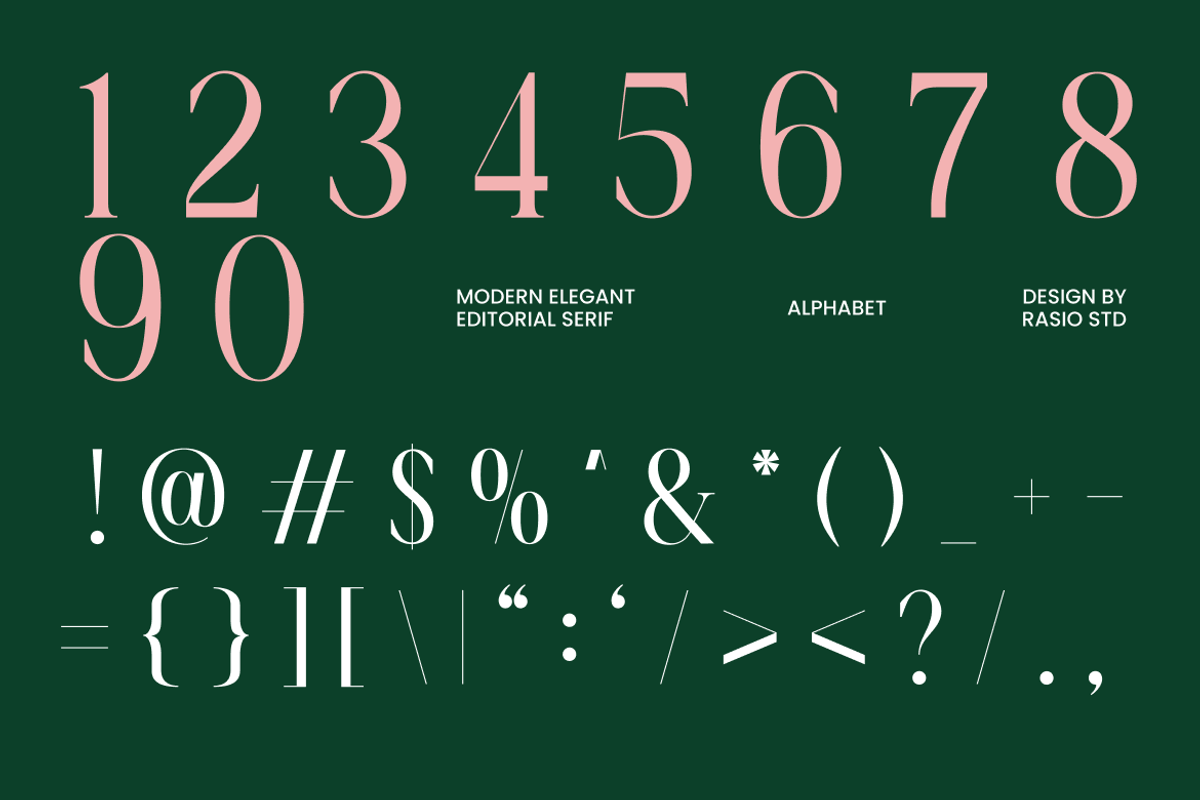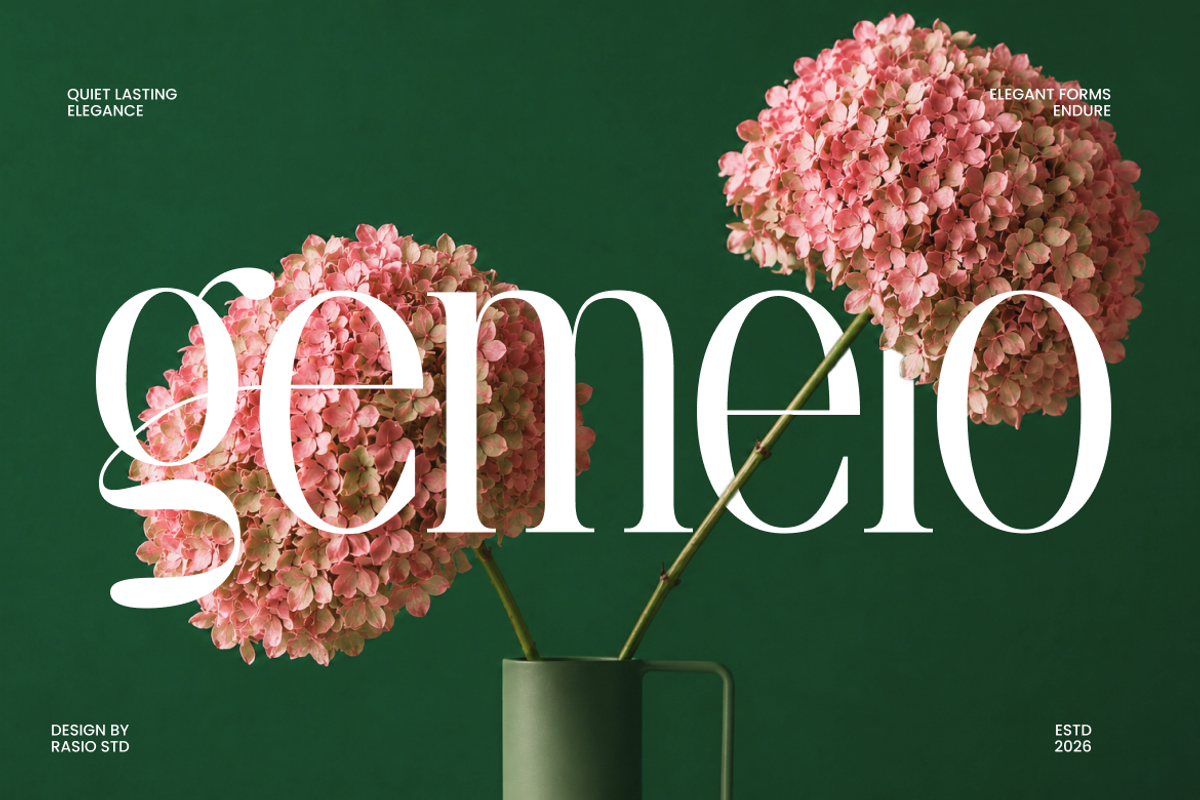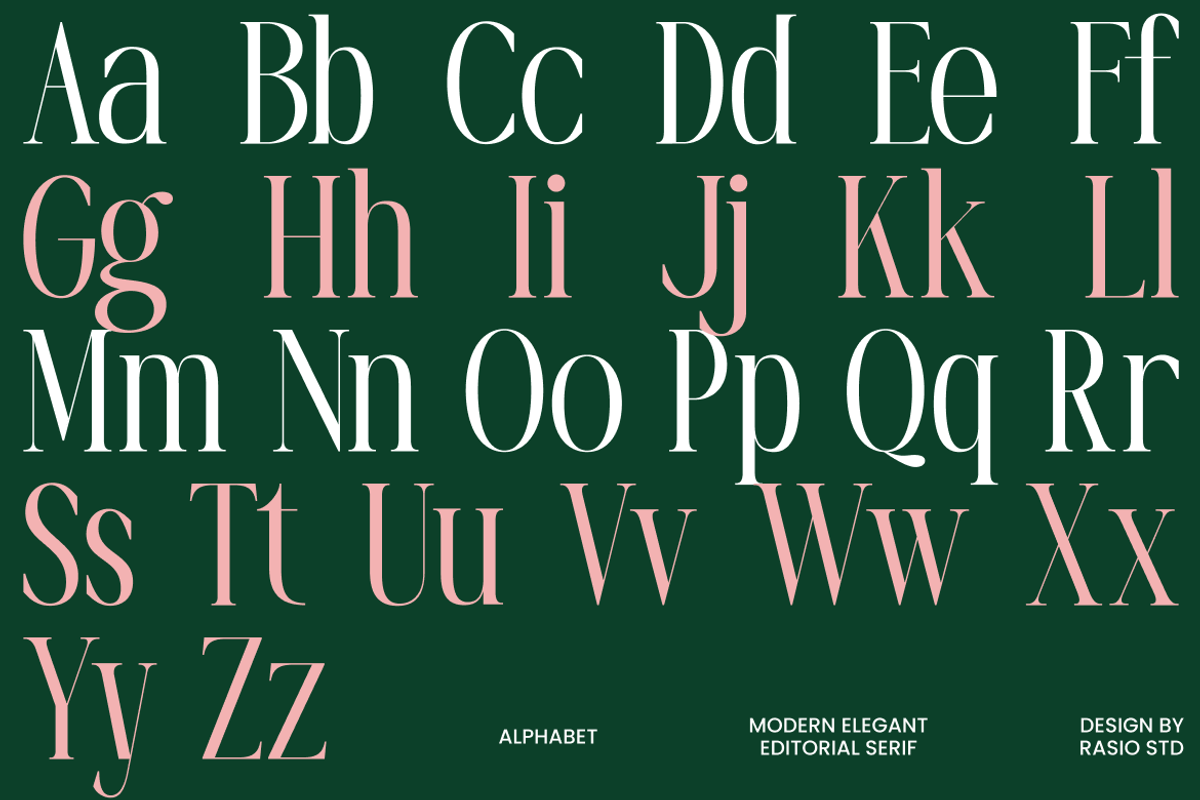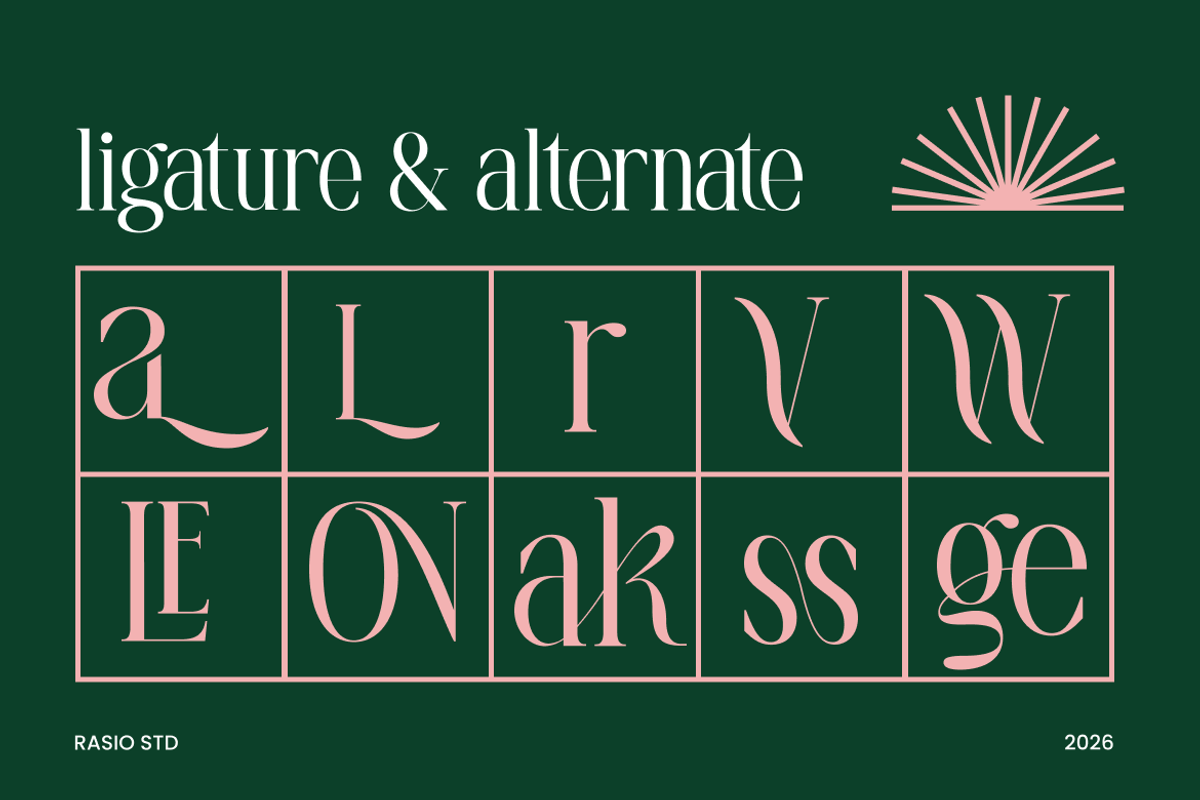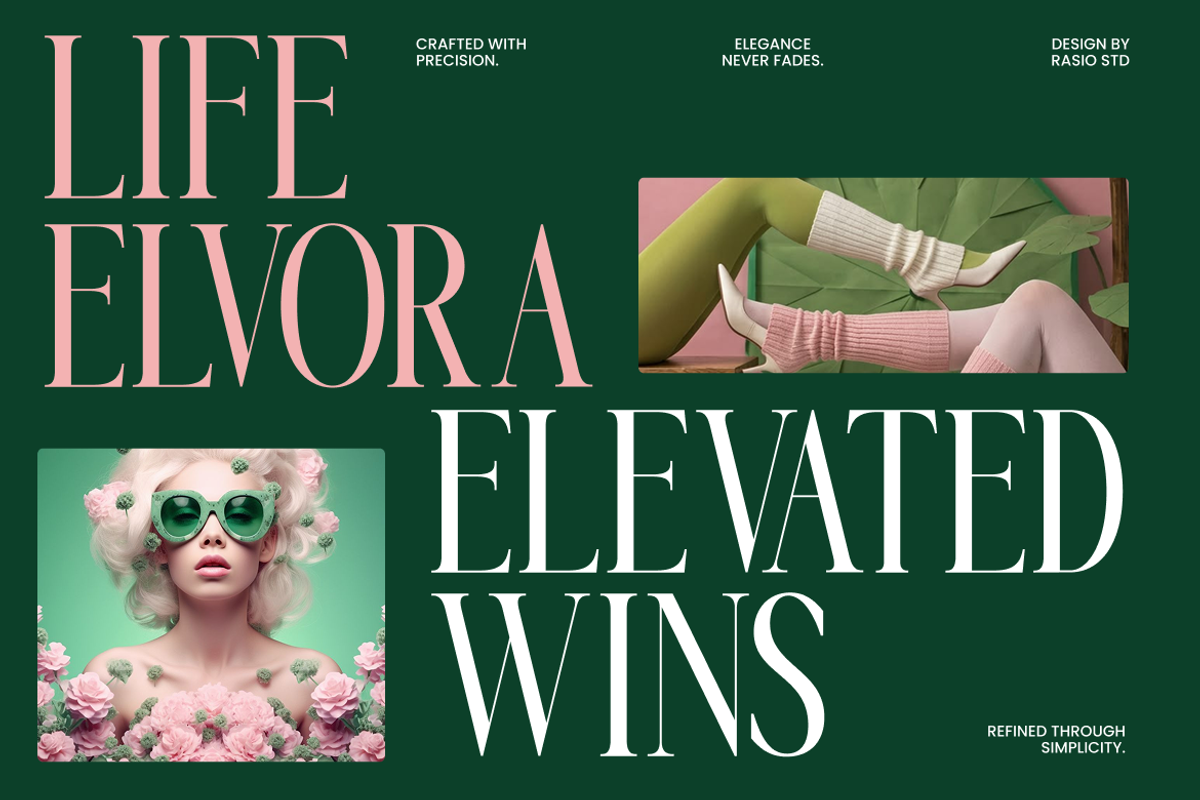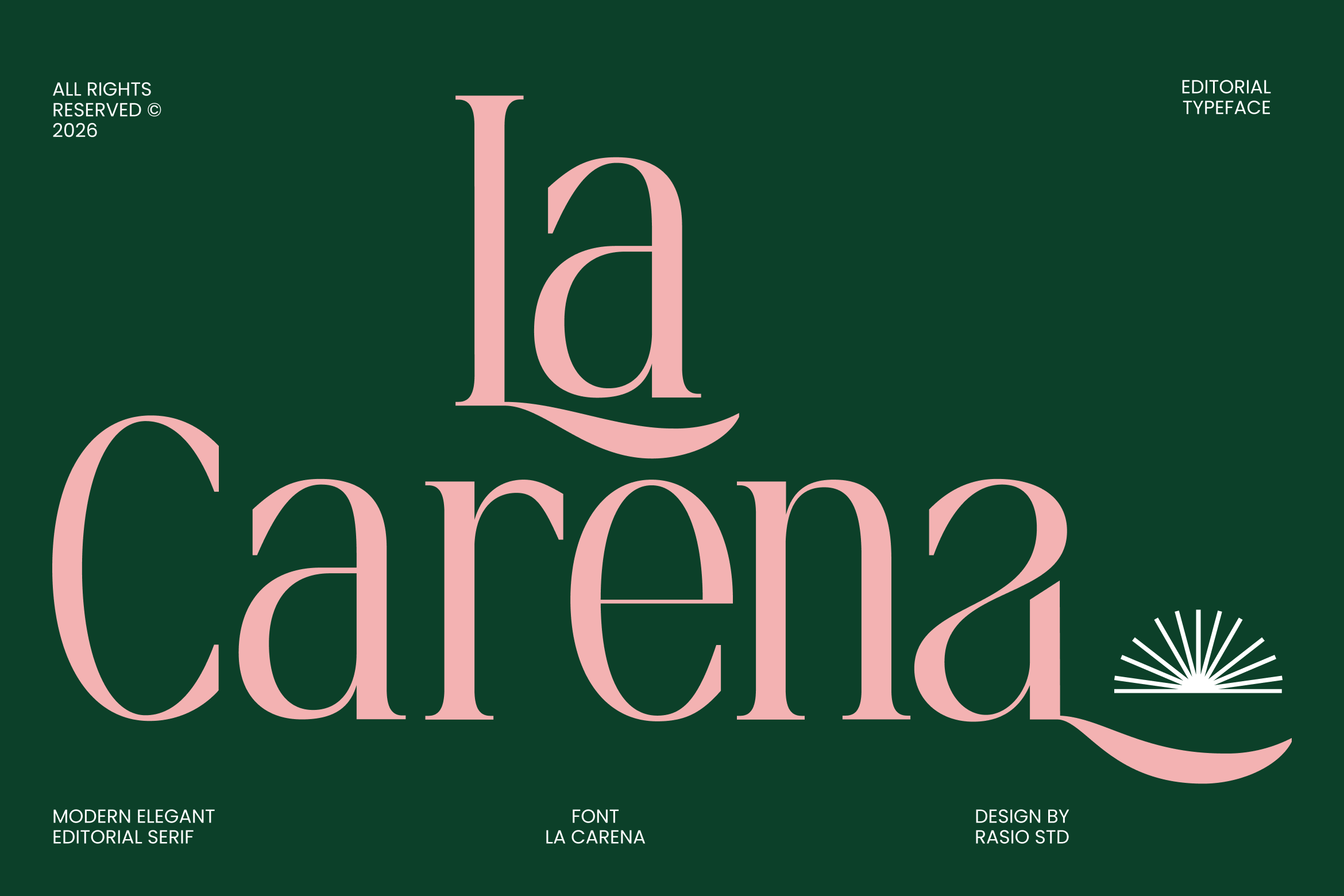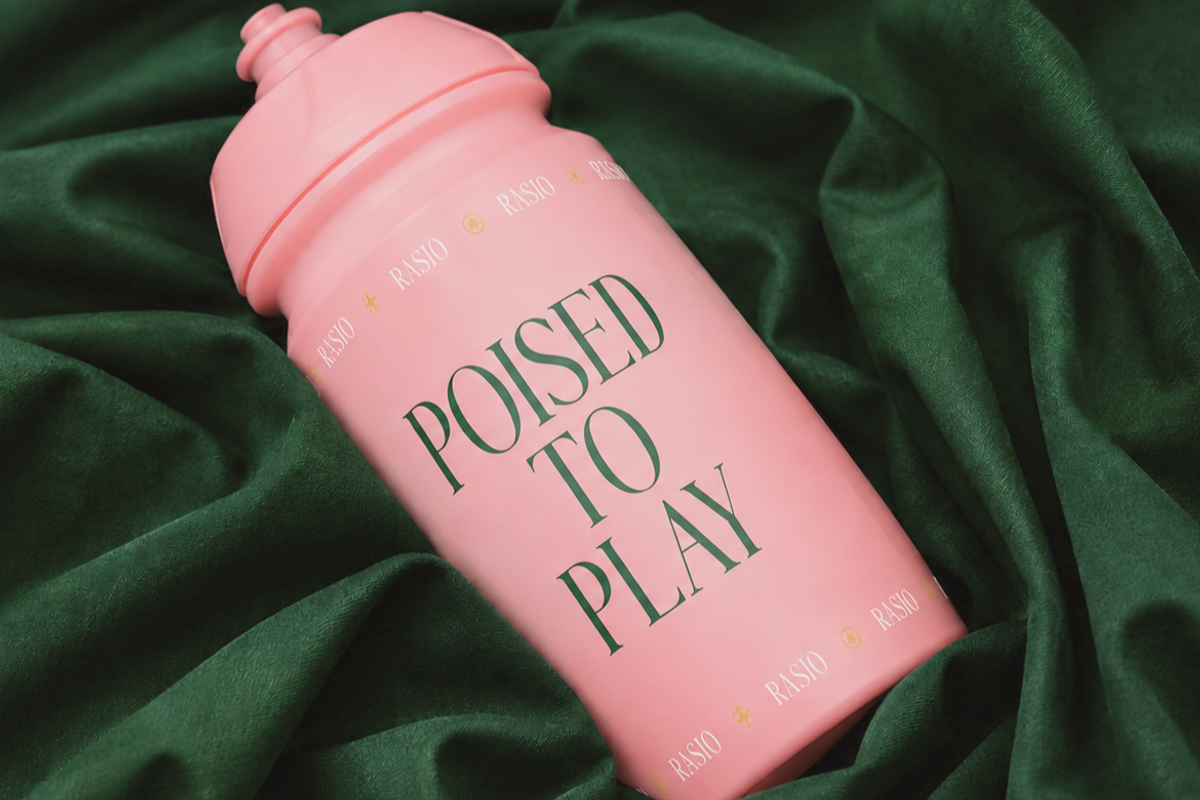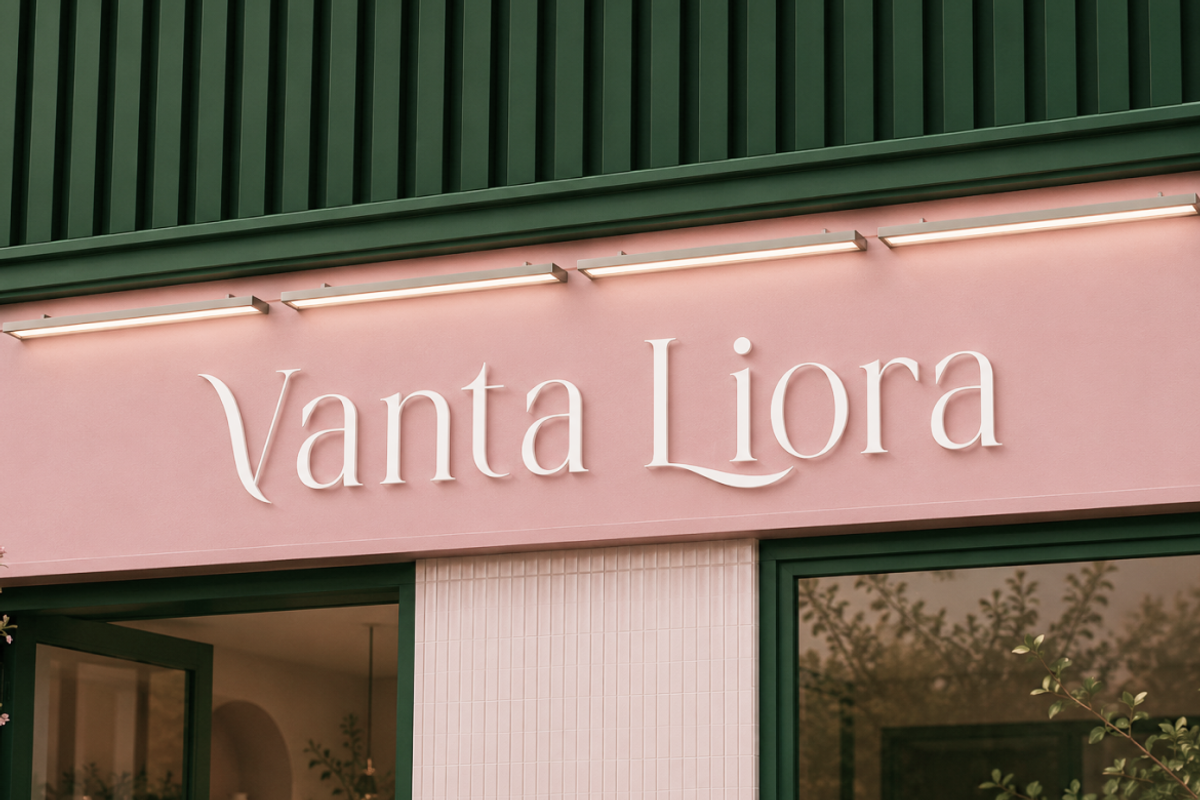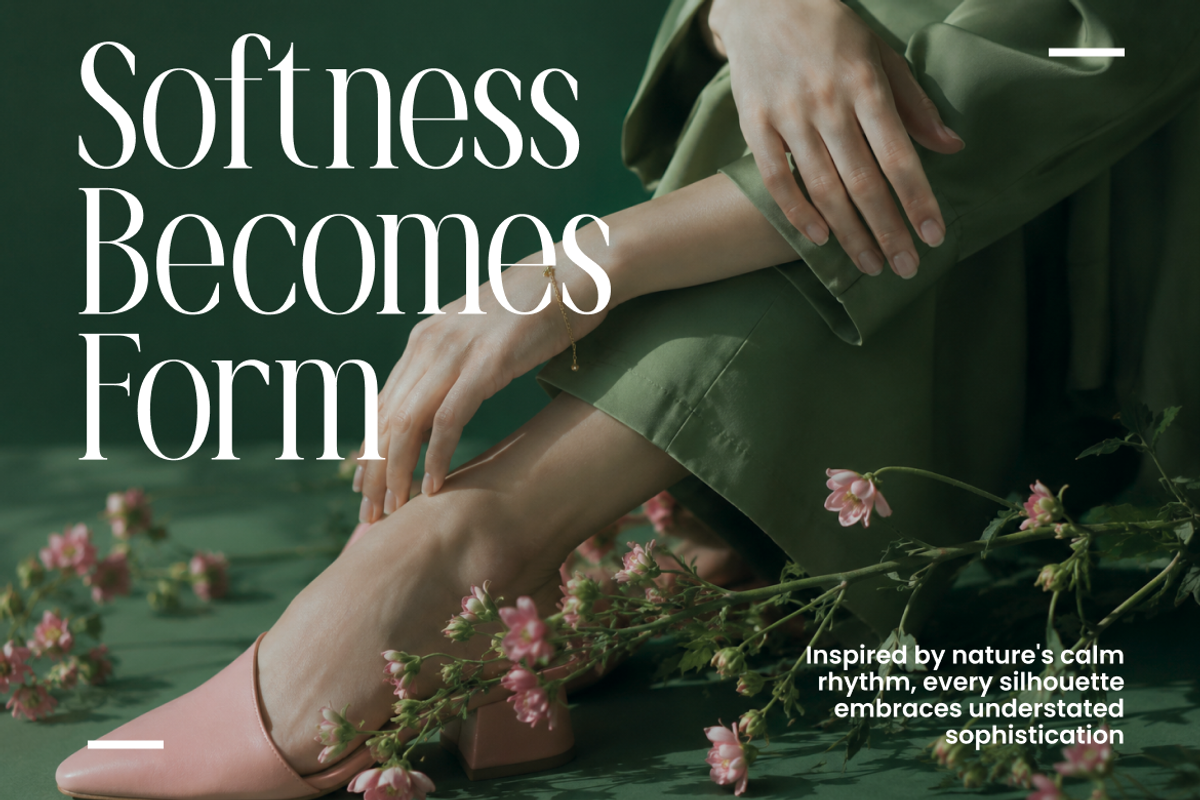
La Carena Modern Elegant Serif Font
La Carena is a refined editorial serif typeface defined by high contrast, elongated proportions, and elegant, sharply articulated serifs. Its letterforms combine slender hairlines with stronger vertical strokes, creating a graceful rhythm that becomes especially expressive at larger sizes. Distinctive details such as the sweeping lower strokes, sculpted terminals, curved transitions, and elegant lowercase forms give the typeface a sophisticated personality without making the lettering feel overly ornate.
The design is built primarily for prominent typography, where its proportions and fine details can be clearly appreciated. The uppercase and lowercase characters provide different levels of visual emphasis, allowing designers to create refined title hierarchies while maintaining a consistent typographic voice. La Carena is particularly effective when paired with generous spacing, restrained layouts, photography, botanical imagery, or premium color palettes, making it a strong choice for sophisticated visual identities and editorial-oriented compositions.
High-contrast serif construction with delicate hairlines and stronger vertical strokes
Tall, elegant proportions that create a sophisticated editorial silhouette
Sharp, refined serifs with carefully shaped terminals
Graceful curved transitions throughout the lowercase character set
Distinctive extended strokes that add personality to selected letterforms
Fashion branding for clothing labels, beauty houses, accessories, boutique
Magazine and editorial layouts for cover titles, section headings, feature names
Luxury packaging for cosmetics, fragrance, skincare, candles, and premium lifestyle
Wedding stationery including invitations, menus, ceremony cards
Book and art publications where elegant lettering visual mood
Supports numerals, punctuation, and extensive symbol set